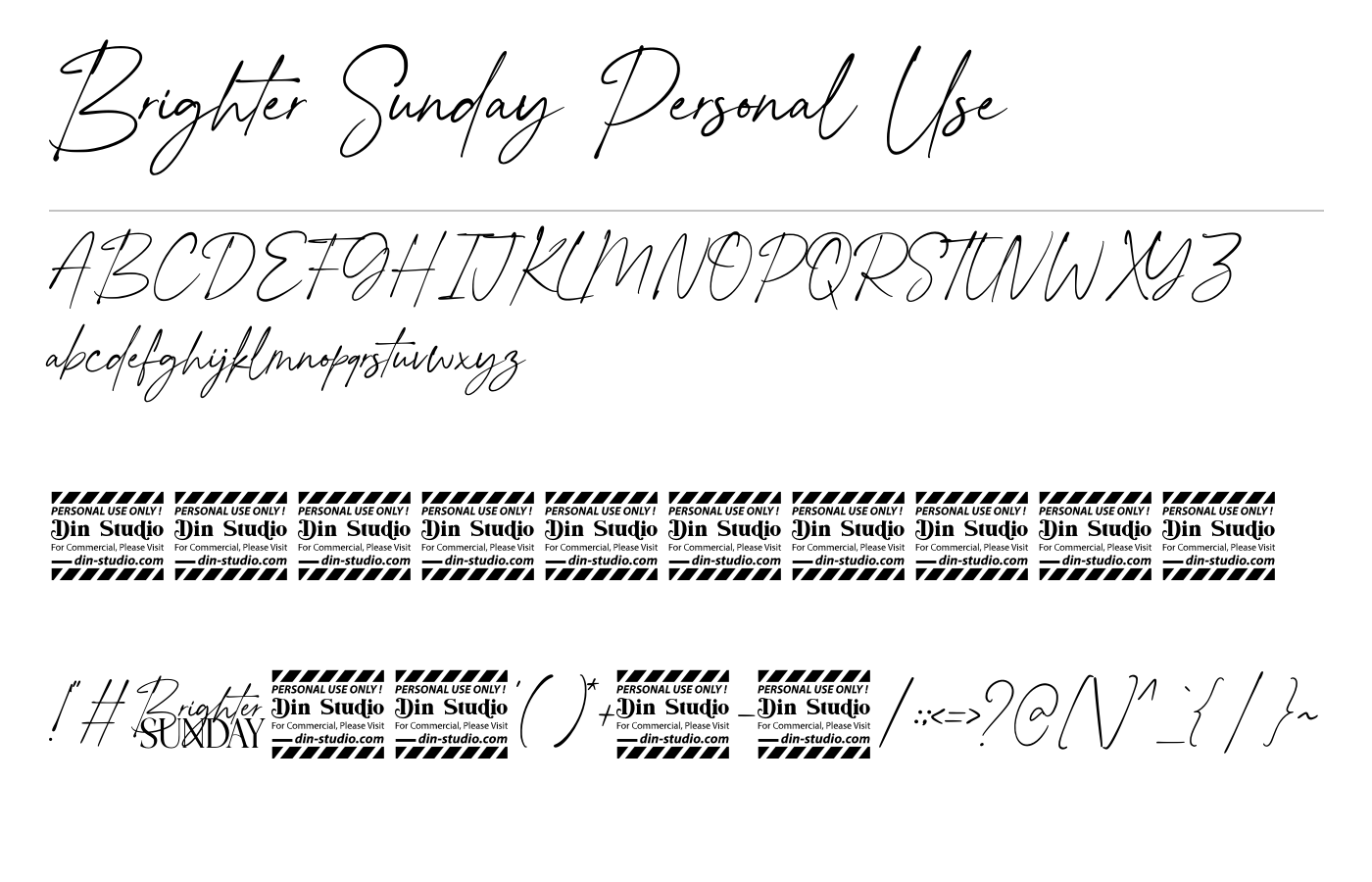
Brighter Sunday Personal Use is a delicate, handwritten script font that exudes a casual yet refined elegance. With its thin, flowing strokes and natural letterforms, it creates a personal and inviting feel, perfect for branding, invitations, and editorial projects that seek a touch of warmth and sophistication. This font shines in creative contexts where a stylish, feminine, and approachable tone is desired.
Brighter Sunday Personal Use Font
About Brighter Sunday Personal Use Font
| Font family | Brighter Sunday Personal Use Font |